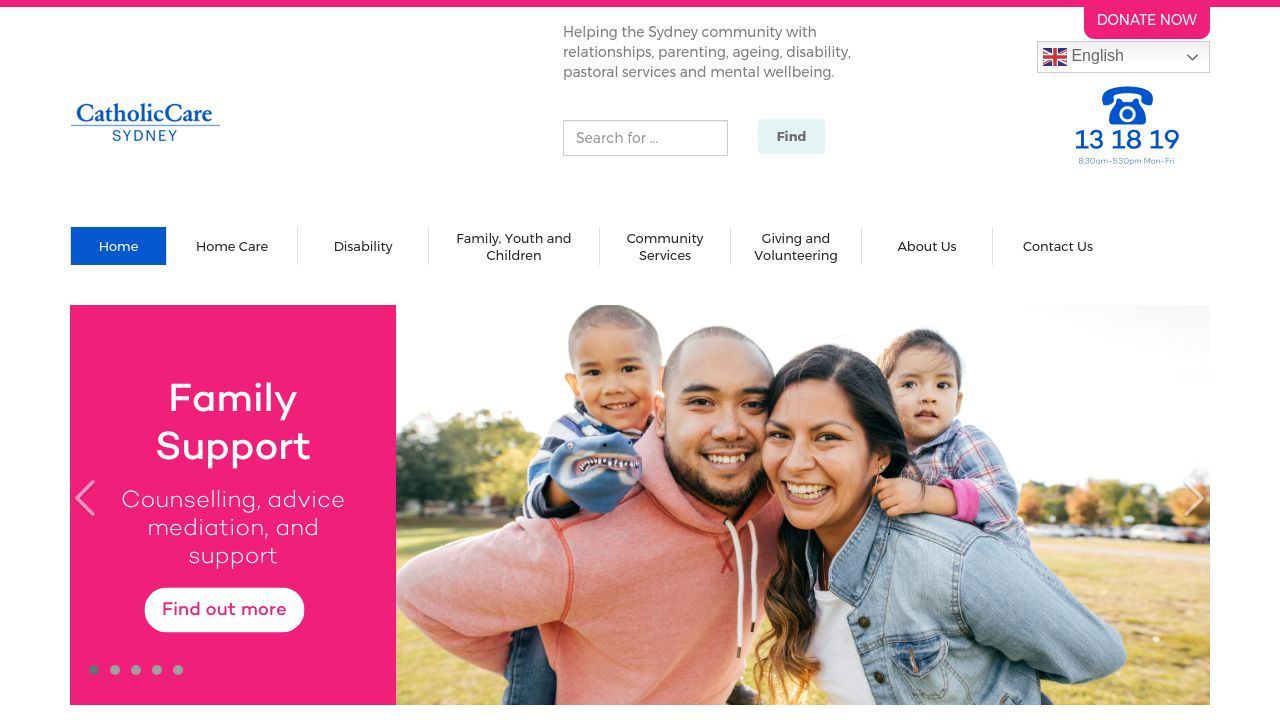
CatholicCare Sydney's website, catholiccare.org, utilizes a thoughtful selection of fonts that reflect its commitment to community support. The primary font, Helvetica Neue, provides clarity and legibility, making it accessible for all users. Additionally, custom fonts like catholiccareregular and catholiccarebold emphasize the organization's identity, while the inclusion of Menlo and FontAwesome icons enhances functionality. This careful typography choice resonates with families and individuals seeking compassionate assistance in various services, from parenting to wellbeing.
font-family: 'catholiccarebold', sans-serif;These fonts are listed in the CSS as backups. The browser only falls back to them if the main fonts above fail to load.
Used for UI icons rather than readable text - no preview available.
The primary fonts used on catholiccare.org include Helvetica Neue, Menlo, and several custom fonts like catholiccareregular and catholiccarebold.
Fonts like Helvetica Neue and Menlo are widely recognized for their readability and functionality, making them effective compared to alternatives like Arial.
The fonts on catholiccare.org primarily use a weight of 400, including the custom fonts like catholiccarelight and catholiccarebold.
The fallback fonts for catholiccare.org include Arial, Helvetica, Consolas, Monaco, and Courier New, ensuring good readability across different systems.